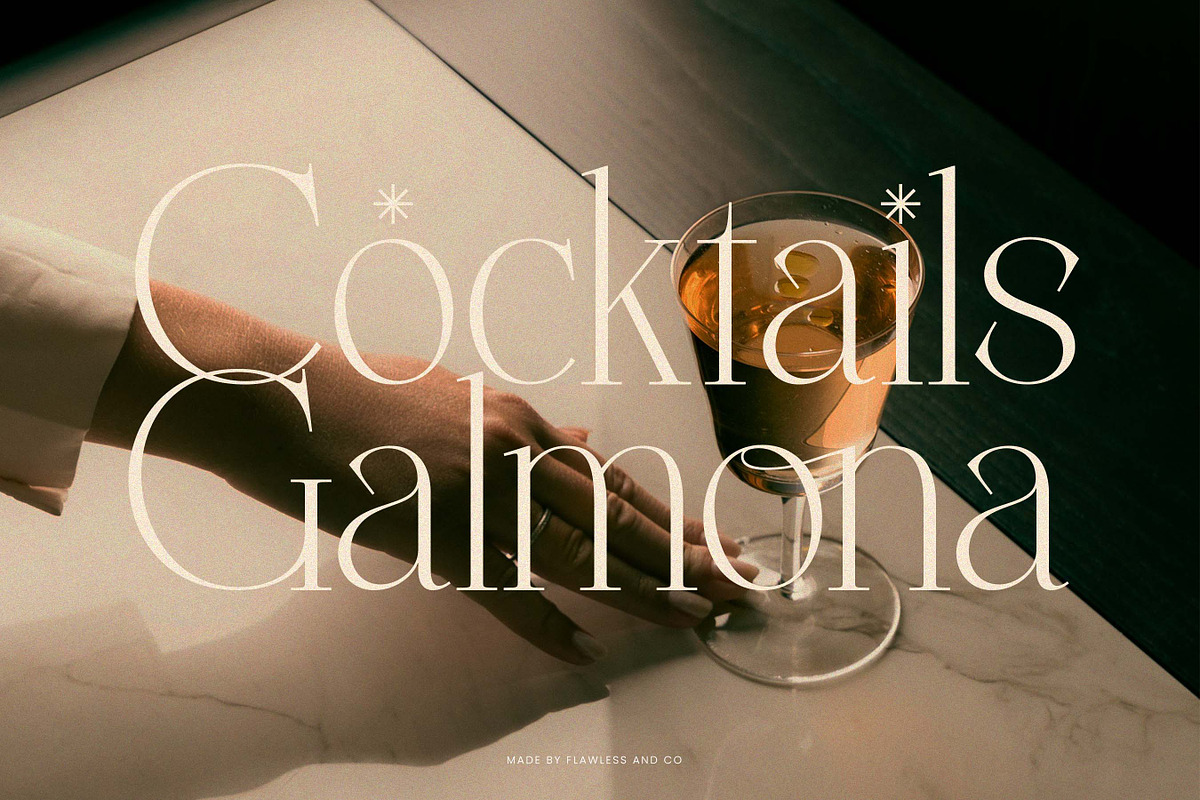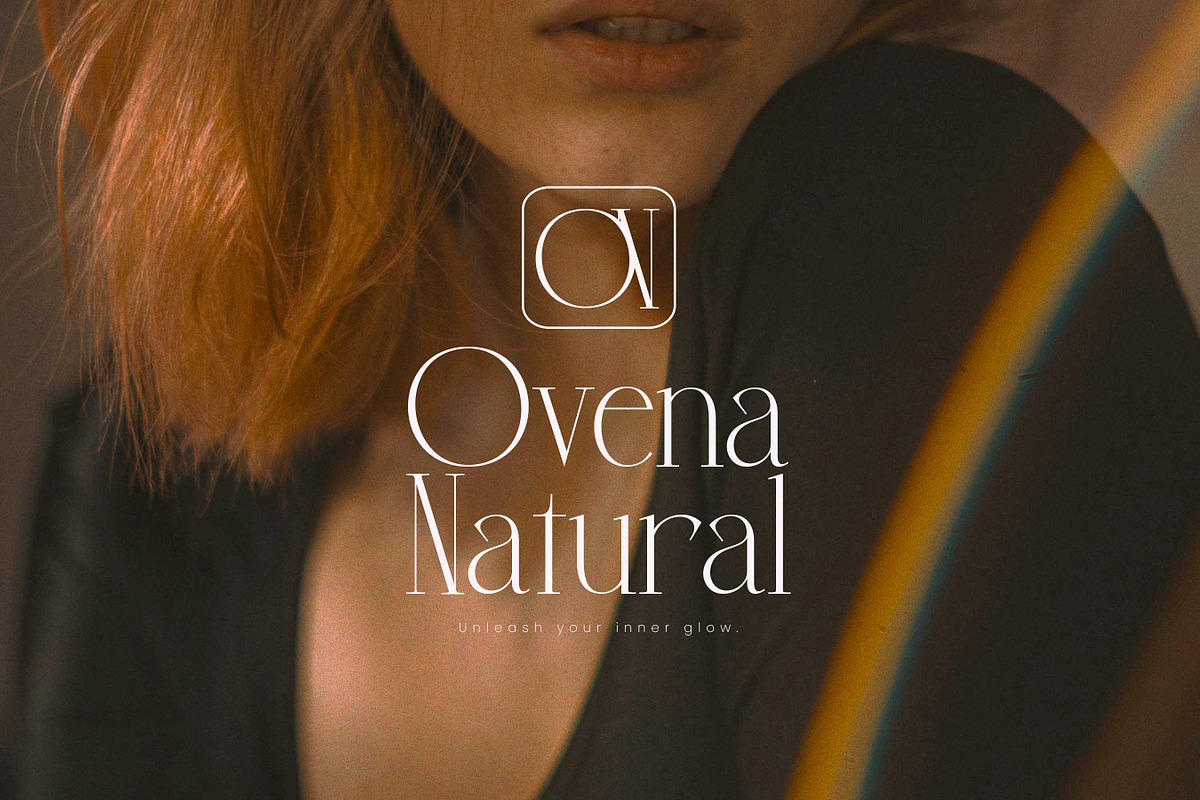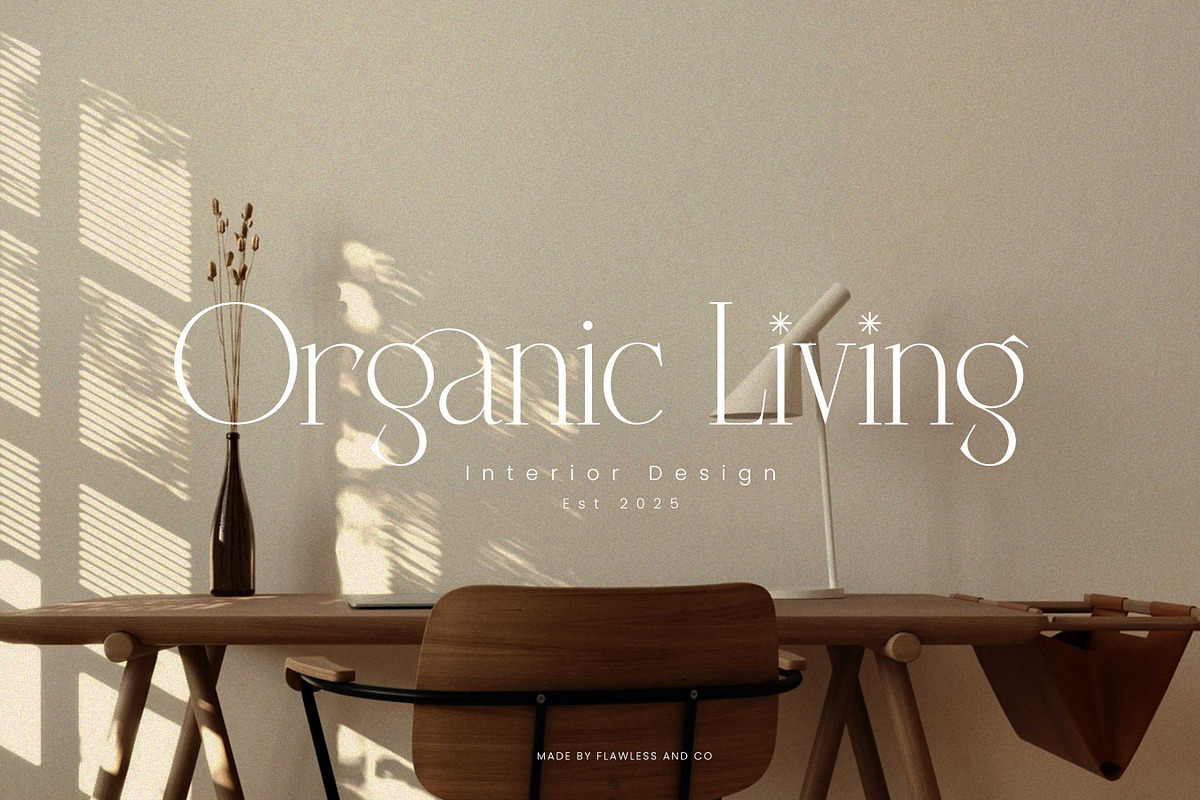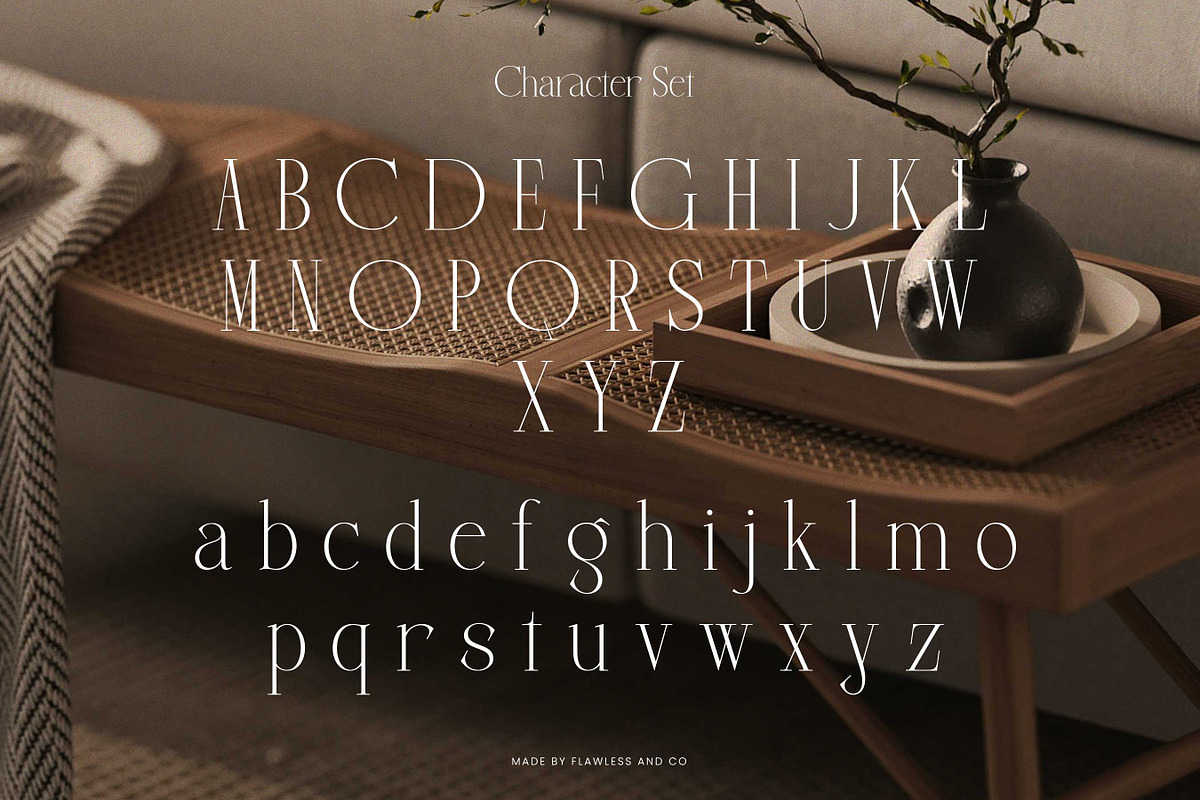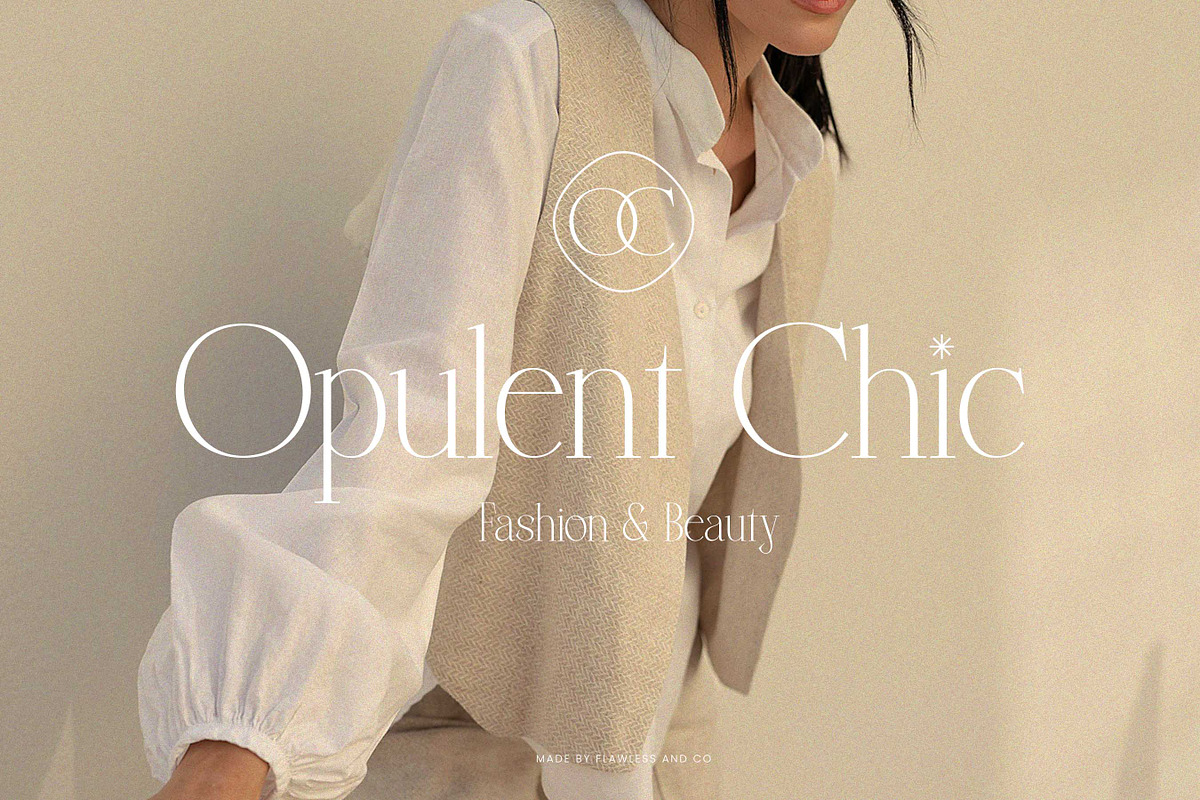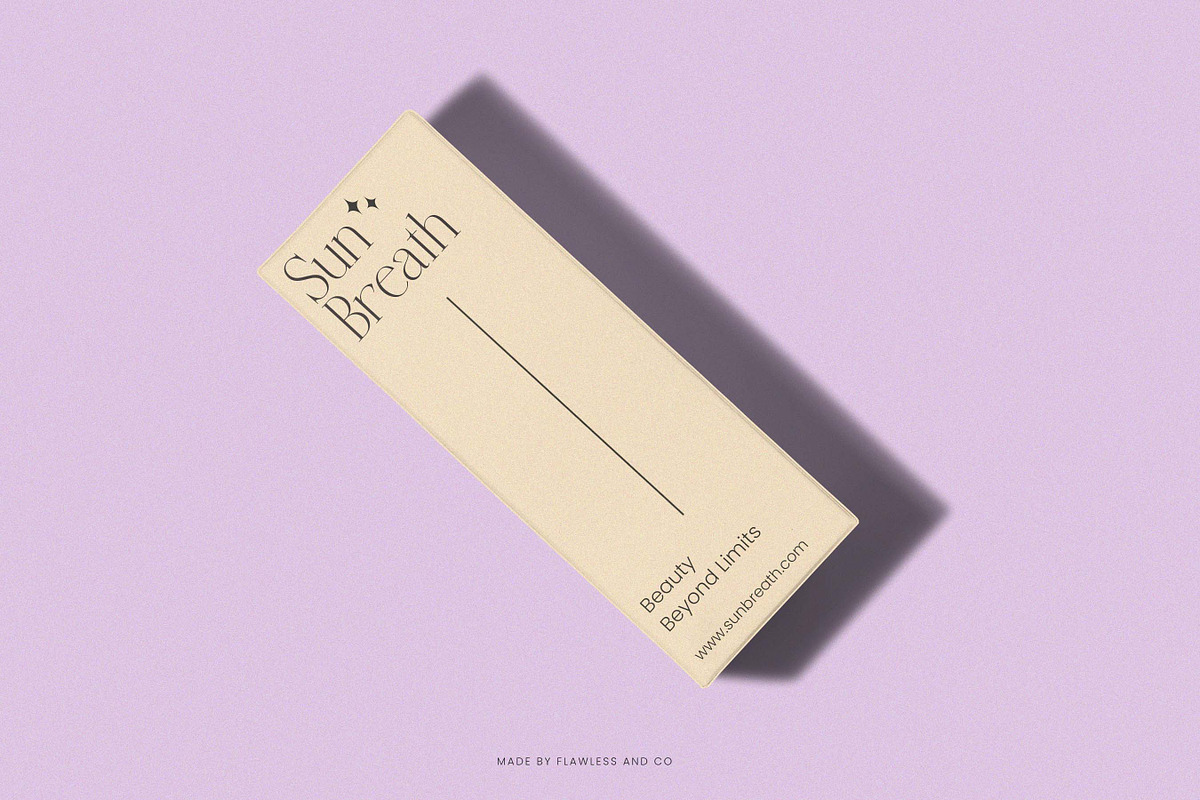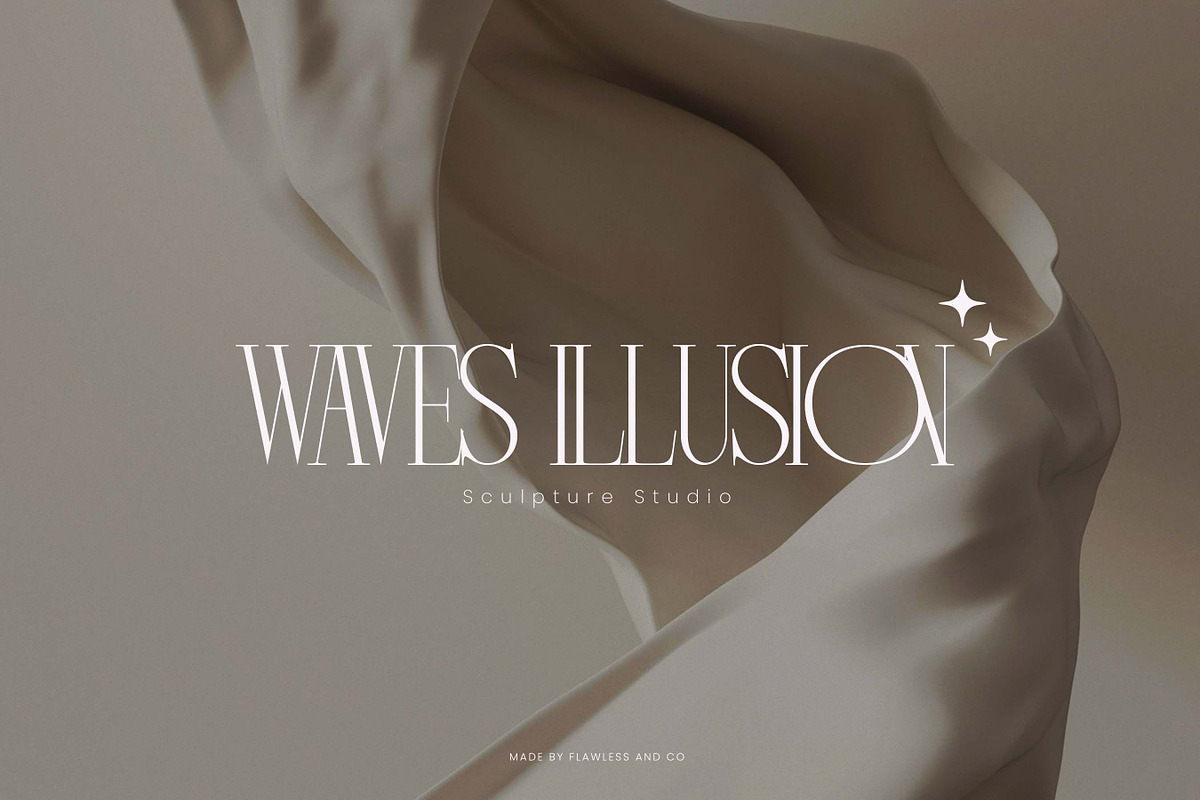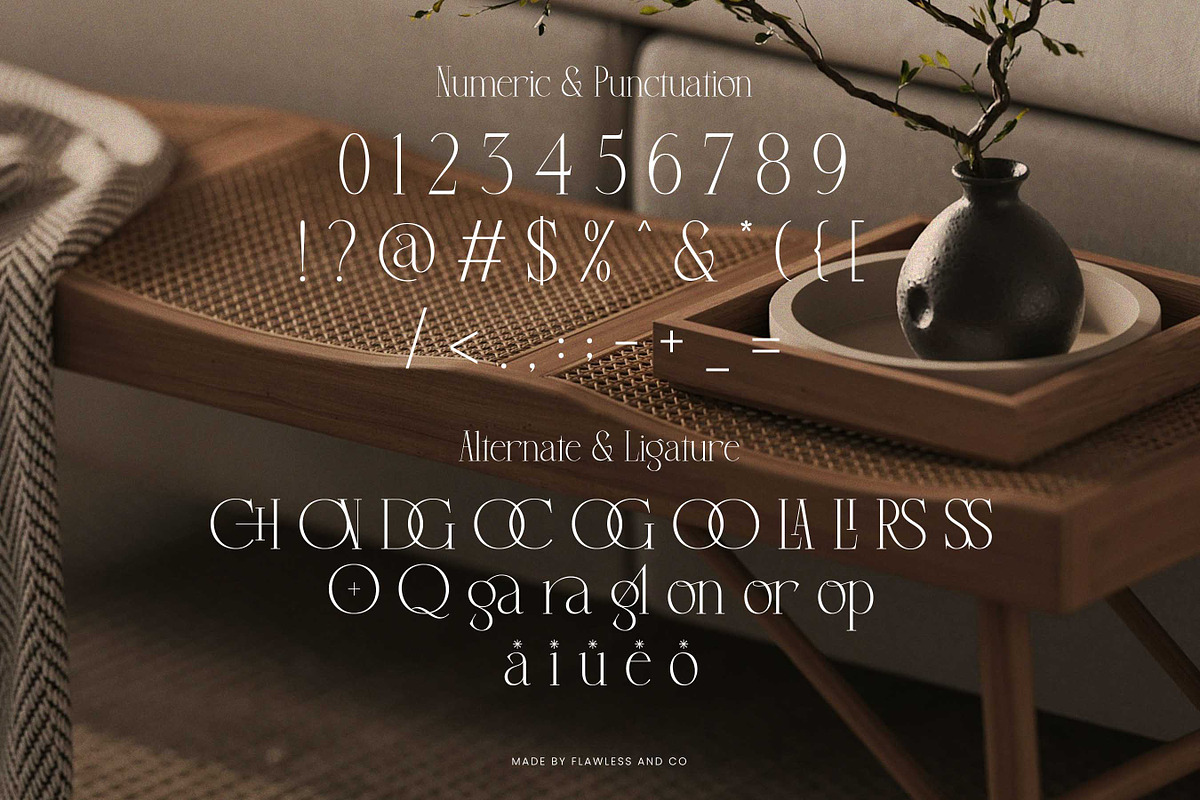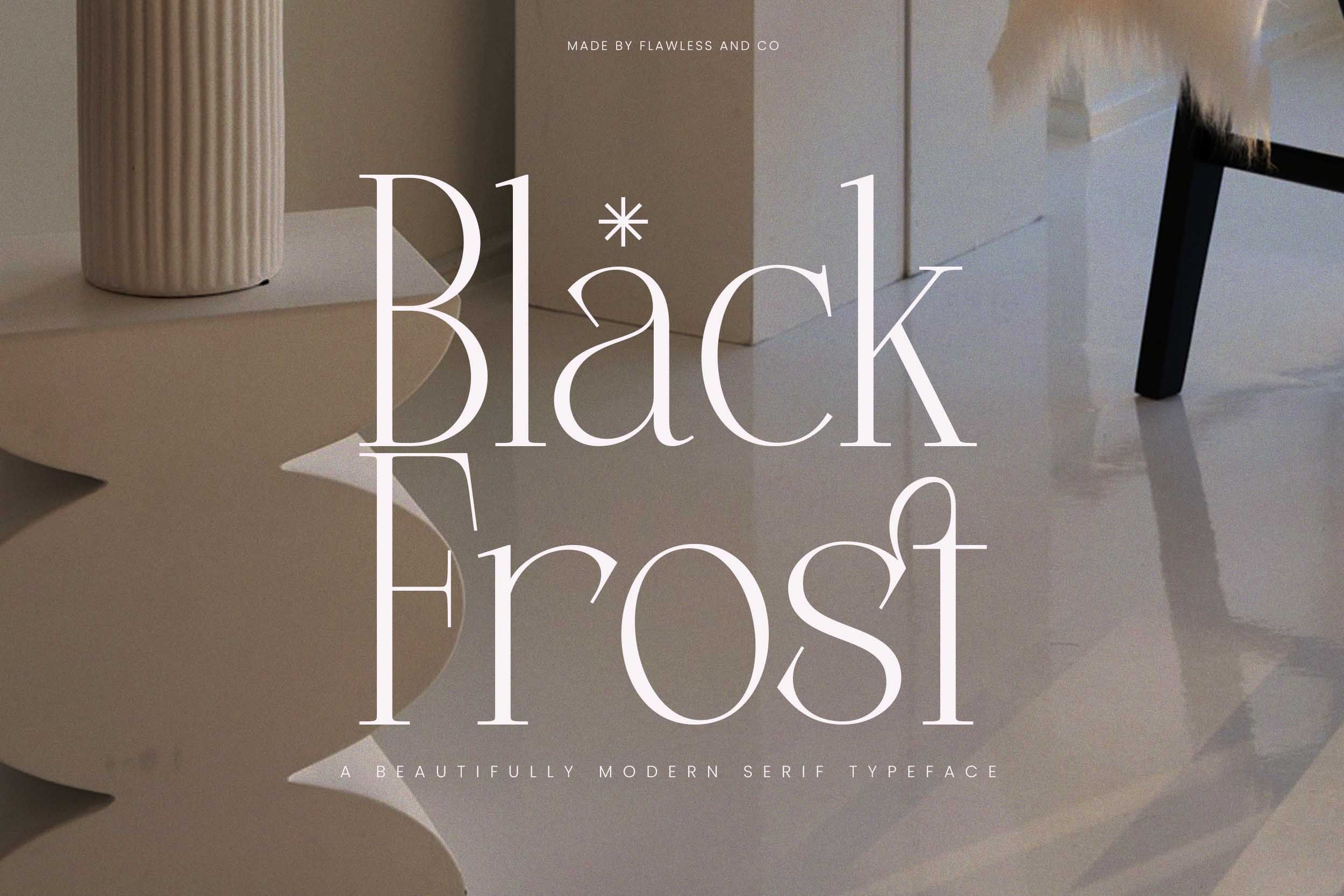
Black Frost - Modern Serif Font
Black Frost is a modern elegant serif font that blends sophistication with contemporary style. With its refined letterforms and sharp details, this font is perfect for luxury branding, high-end fashion, editorial designs, product packaging, wedding invitations, and stylish social media graphics. Elevate your projects with the timeless beauty of Black Frost.